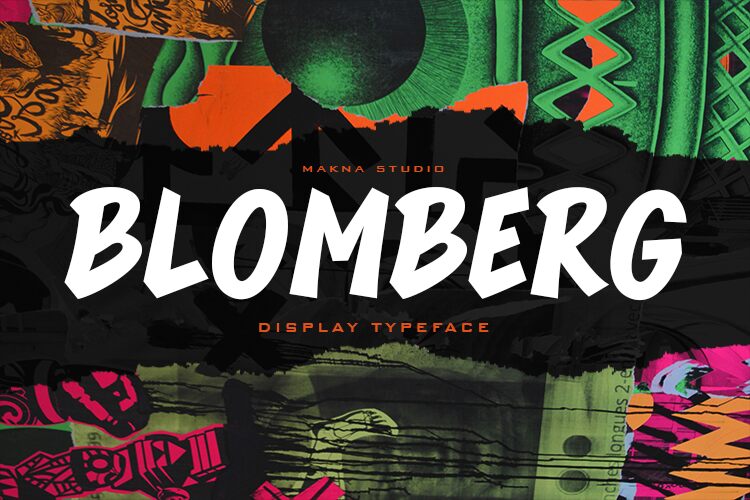
BLOMBERG
Blomberg font was designed by MaknaStudio. Blomberg is a bold display font crafted in comic style, exhibiting thick lines, dynamic slant and high contrast. This modern feel gives it strong presence in digital content.
Use this fresh typeface in cartoons, illustrations, school projects, comic books and many more. It’s also great for branding logo design and T-shirt designs as well. Get it now!